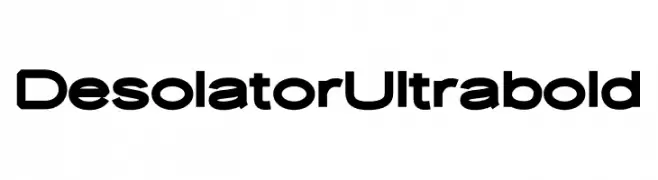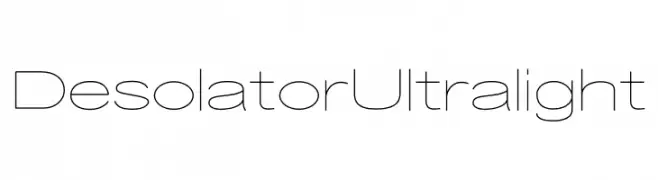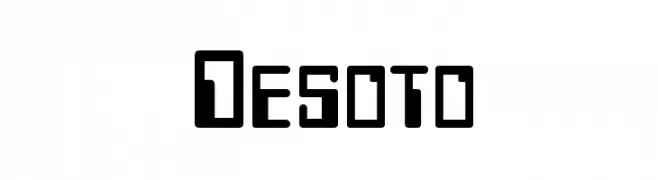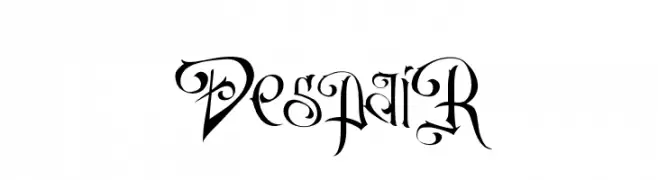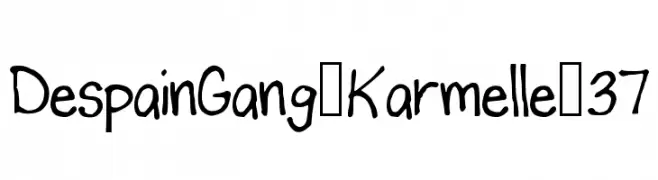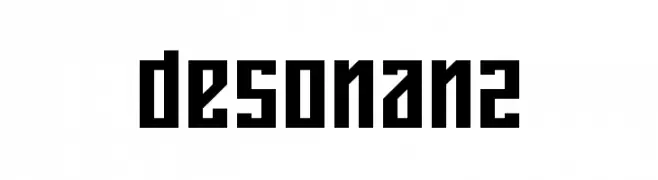
A geometric, double-line font with a modern and dimensional style.
A sleek, modern typeface with thin, geometric lines and a minimalist design.
A bold, geometric sans-serif font with a modern outline style.
A bold, geometric sans-serif font with a modern and impactful style.
A sleek, ultralight font with geometric lines and a modern aesthetic.
( Fonts by Aleksandar Nikov )
A bold, geometric font with sharp angles and a modern industrial style.
( Fonts by Alan Carr )
A bold, geometric font with a modern, futuristic style.
( Fonts by Karmelle Despain )
A playful, casual handwritten font with irregular strokes and a friendly feel.
( Fonts by Jacob Fisher - www.pizzadude.dk )
A futuristic, tech-inspired font with dotted accents and bold geometric shapes.
An ornate and decorative font with elaborate swirls and flourishes.